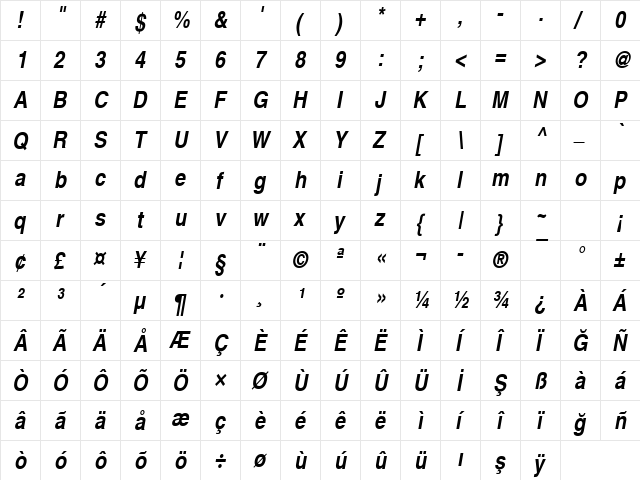
NimbusSanLTUCon Bold Italic
Design Context for NimbusSanLTUCon Typeface
NimbusSanLTUCon offers clean, dependable letterforms without strong stylistic allegiance, making it a practical choice for designers who need flexibility. Its italic angle brings a sense of urgency and motion to the letterforms. The heavy weight commands attention and anchors typographic hierarchies.
Pro Tip: Use NimbusSanLTUCon for emphasis, pull quotes, and subheadings where its slanted energy can add rhythm to the layout.